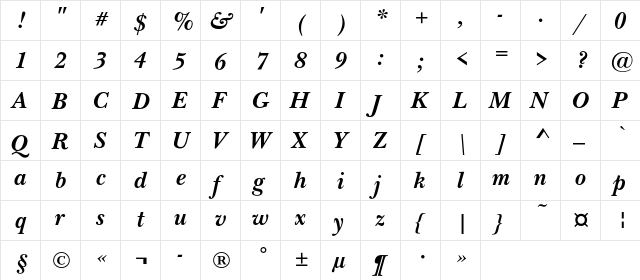
NewBaskervilleC Bold Italic
Design Context for NewBaskervilleC Typeface
NewBaskervilleC offers clean, dependable letterforms without strong stylistic allegiance, making it a practical choice for designers who need flexibility. The slanted form adds forward momentum and visual energy. Its bold stroke weight gives it real presence on the page.
Pro Tip: Try NewBaskervilleC for annotation and caption copy alongside an upright companion — the contrast in angle creates a dynamic but ordered typographic system.